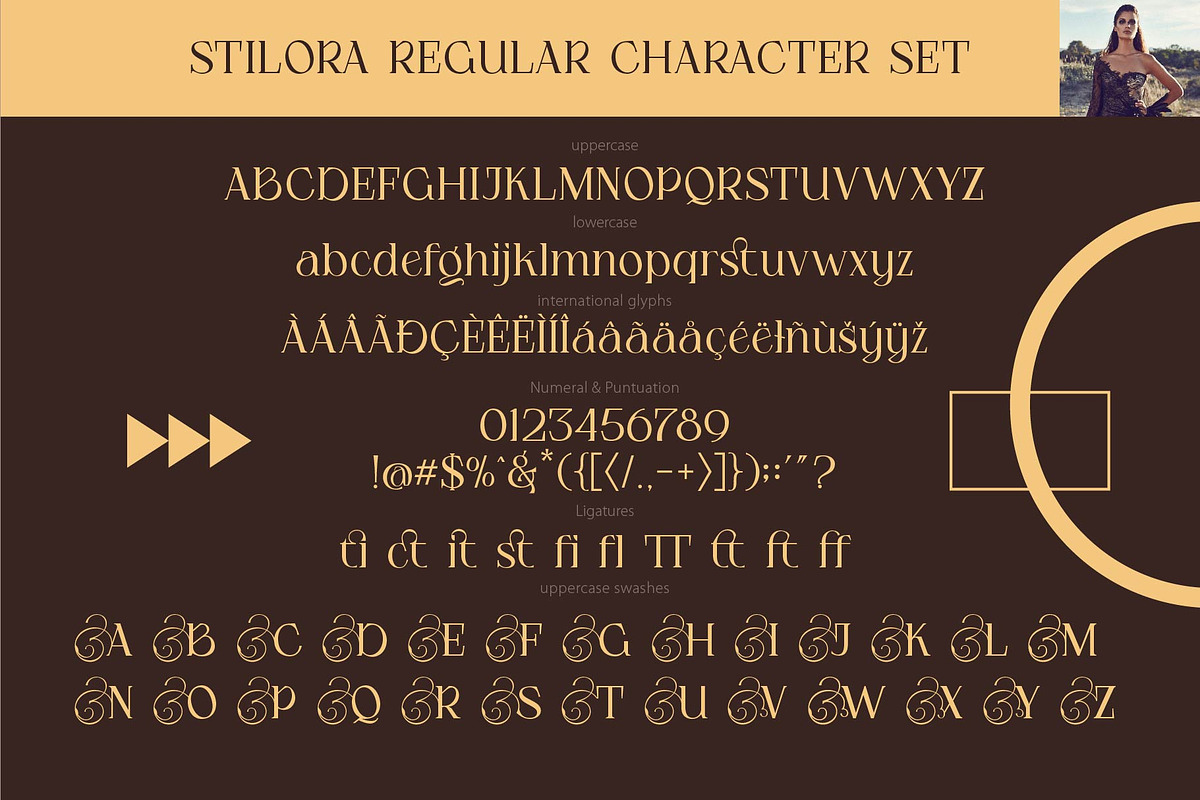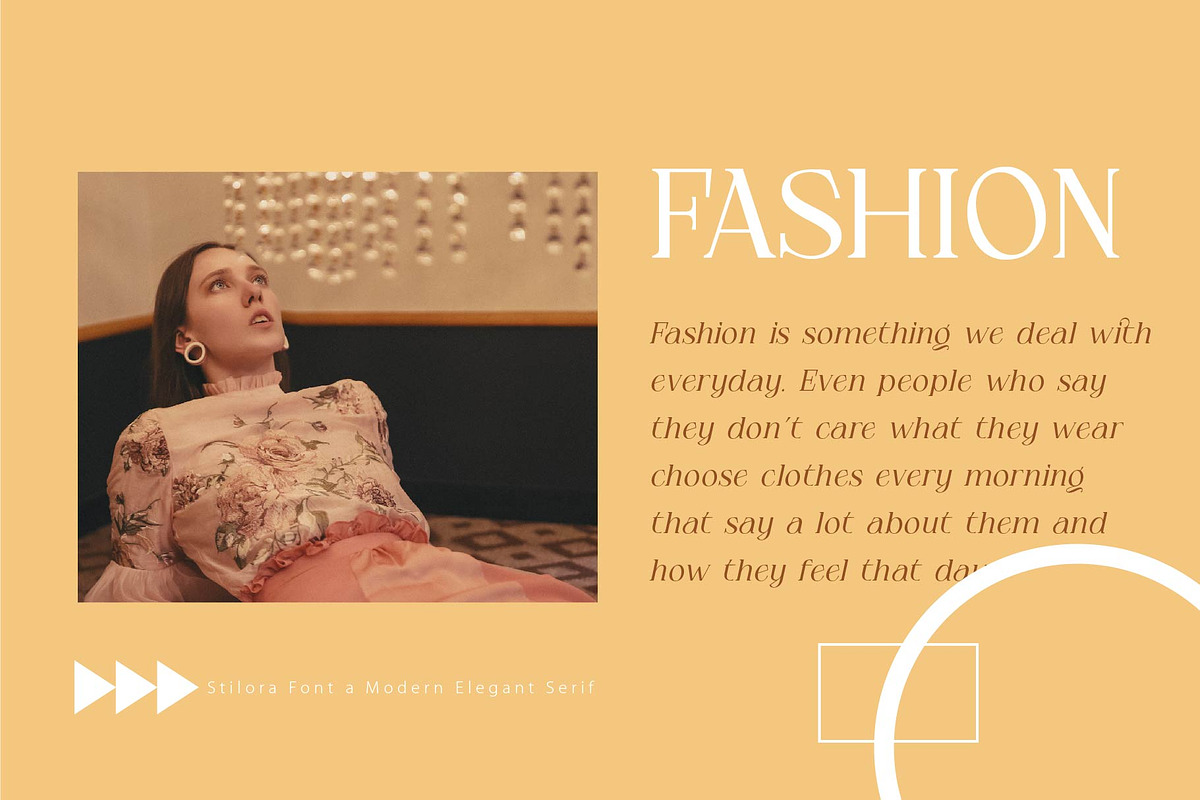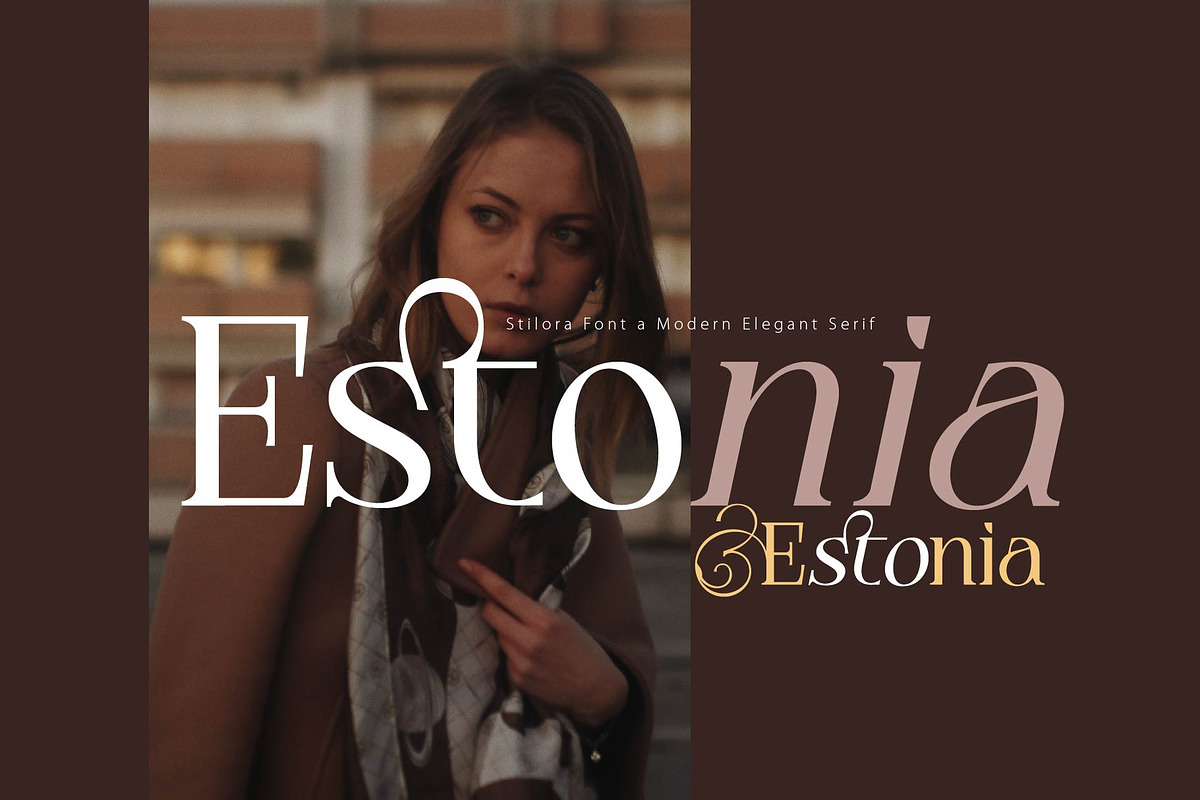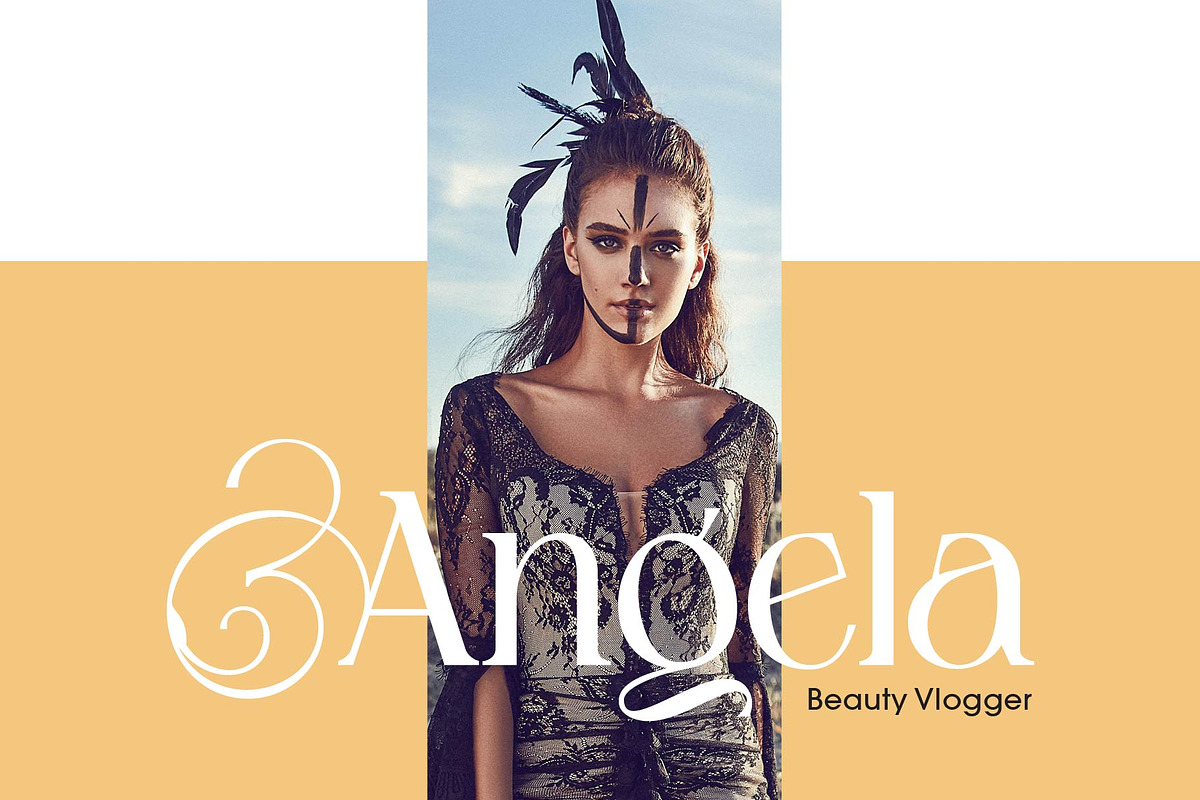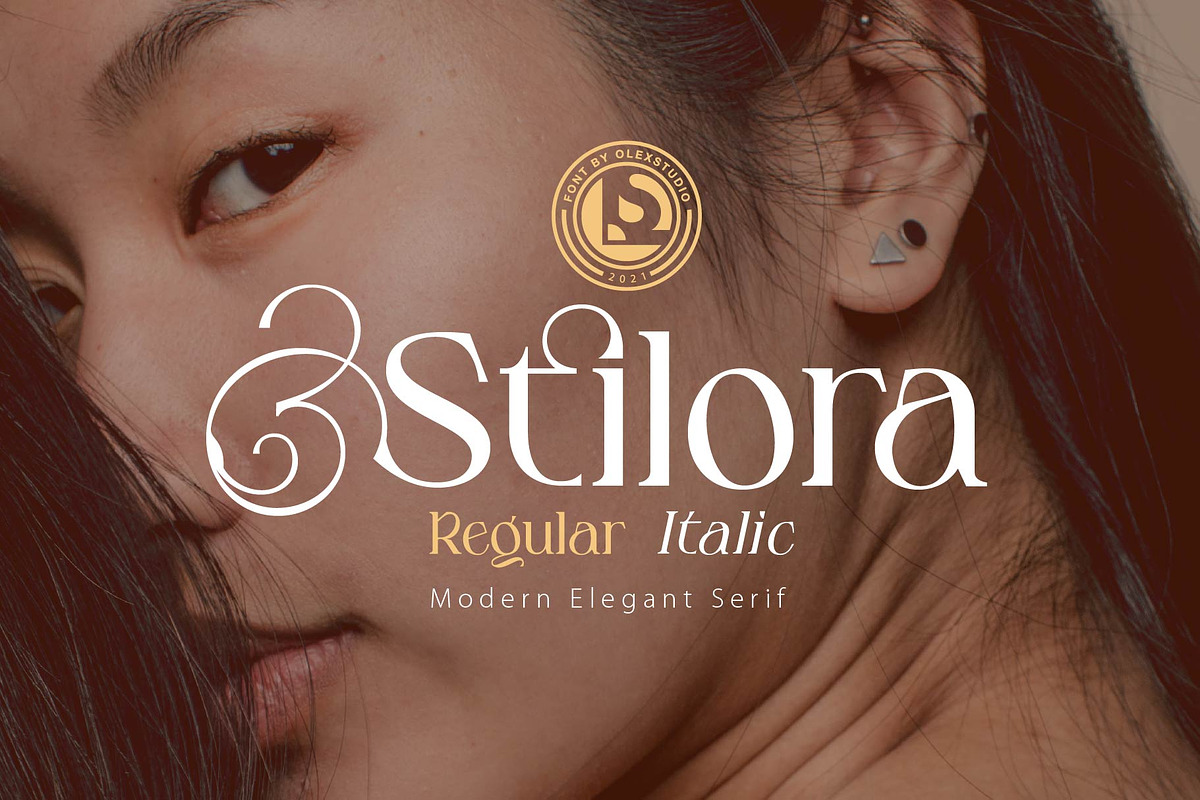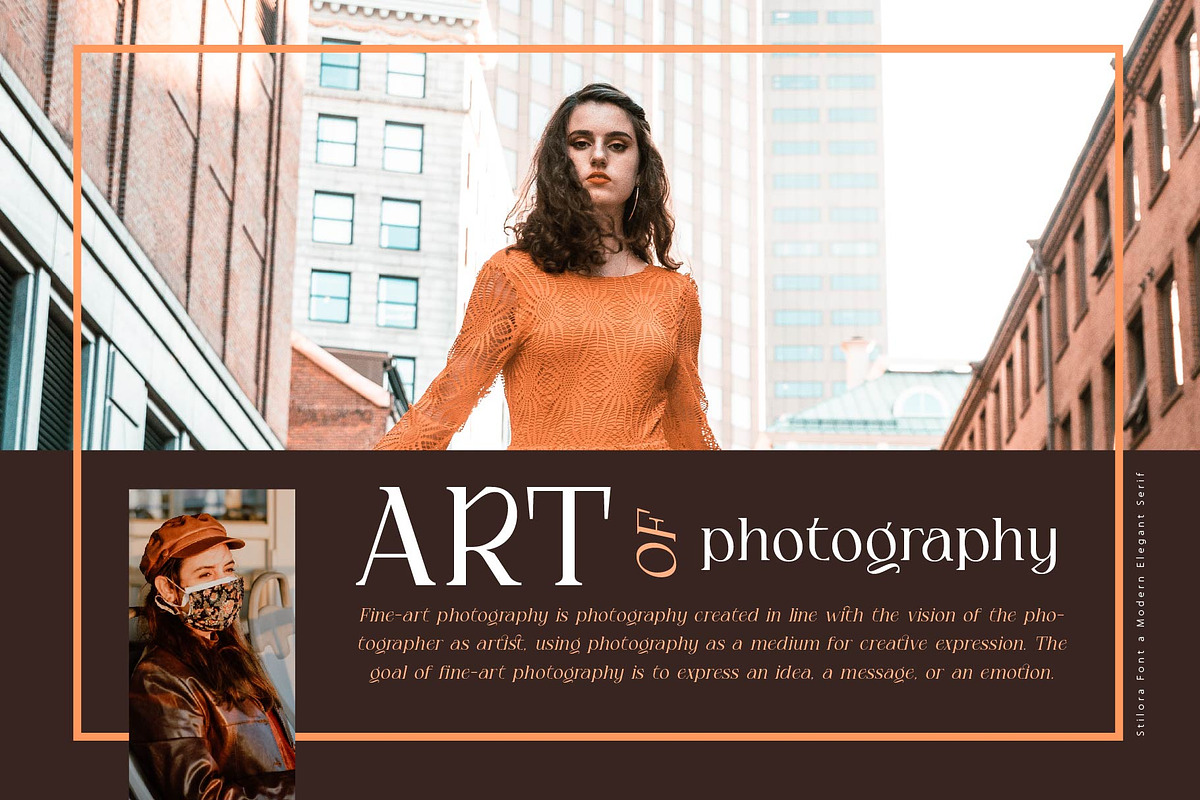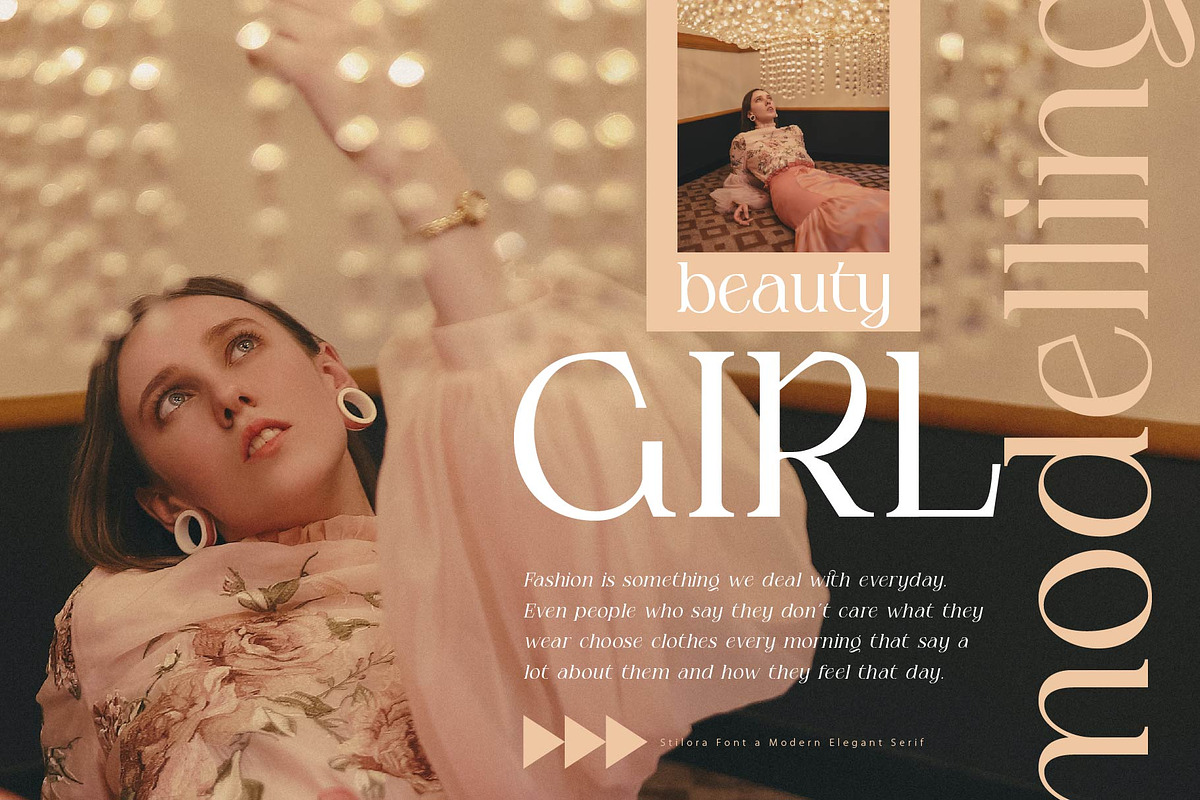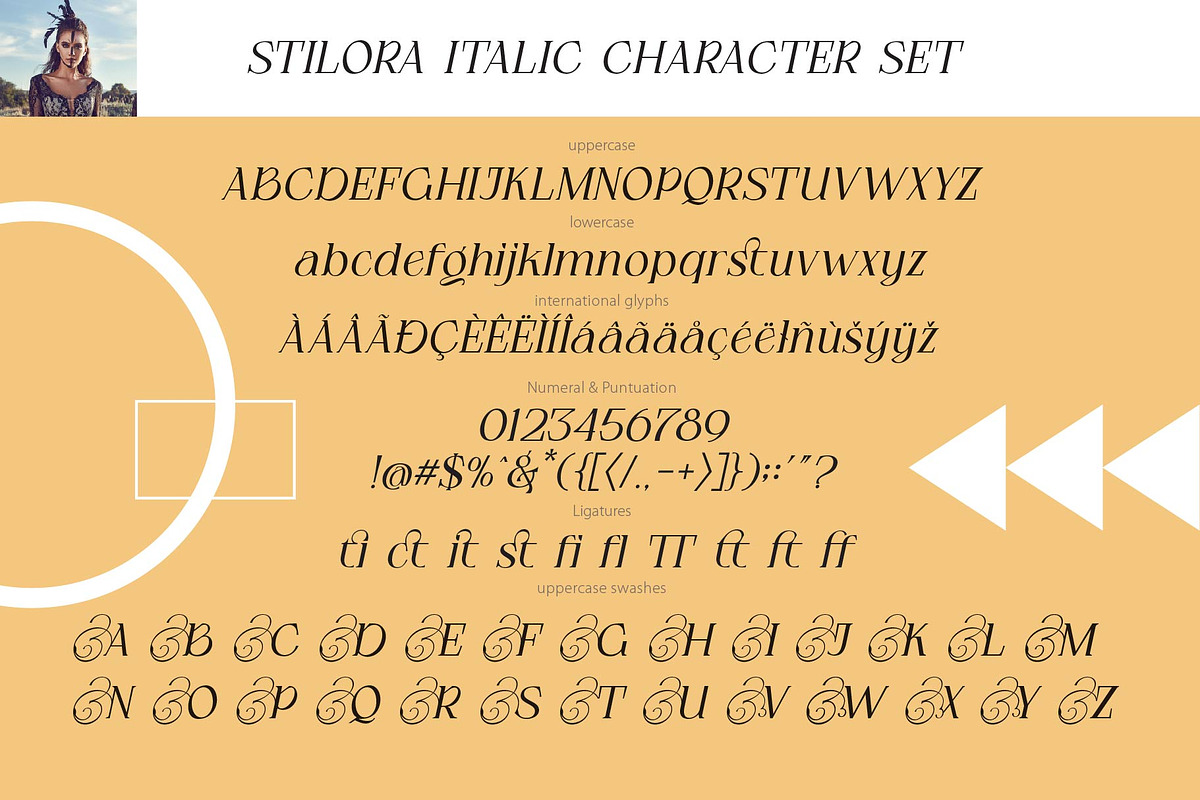
STILORA - Serif
Stilora is a beautiful modern serif, this modern serif font gives a feminine and masculine quality to your product designs. With italics, Stilora works very well in layout design for citations or body copy. and make your logo feel more luxurious and beautiful.
The Stilora font has uppercase, lowercase, puntuation, numerals and international glyps as well as uppercase swashes.